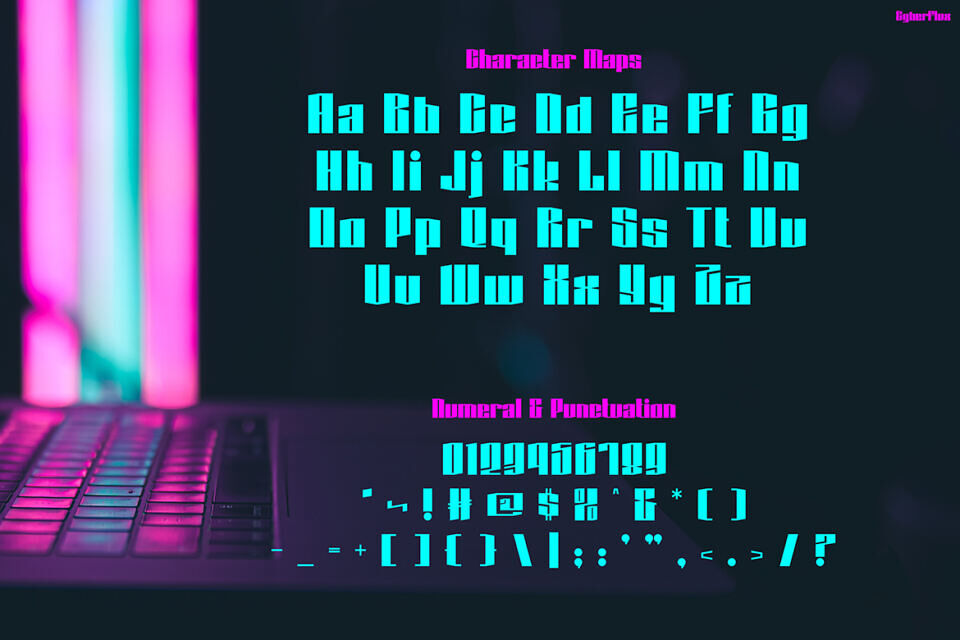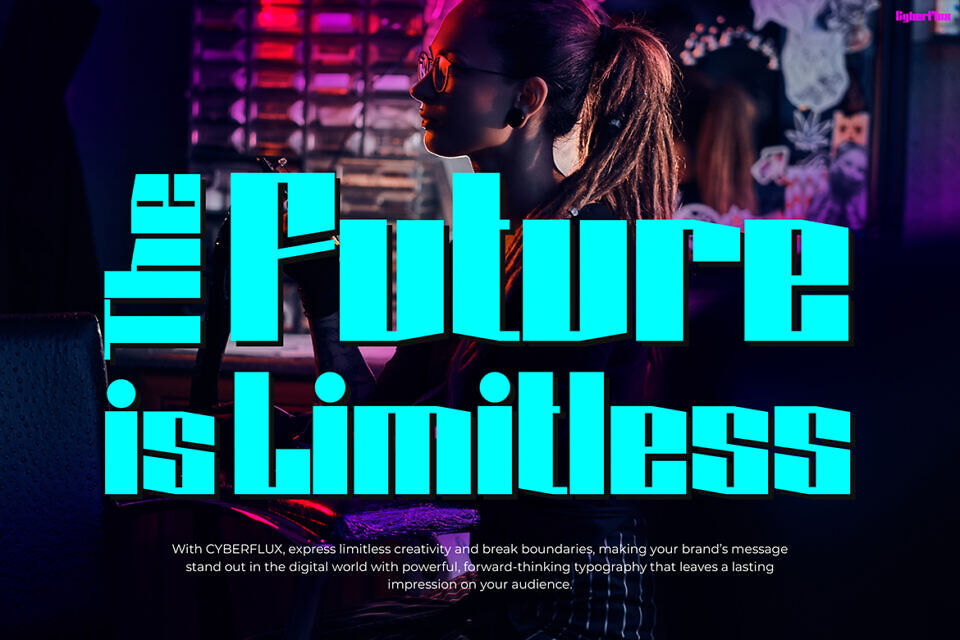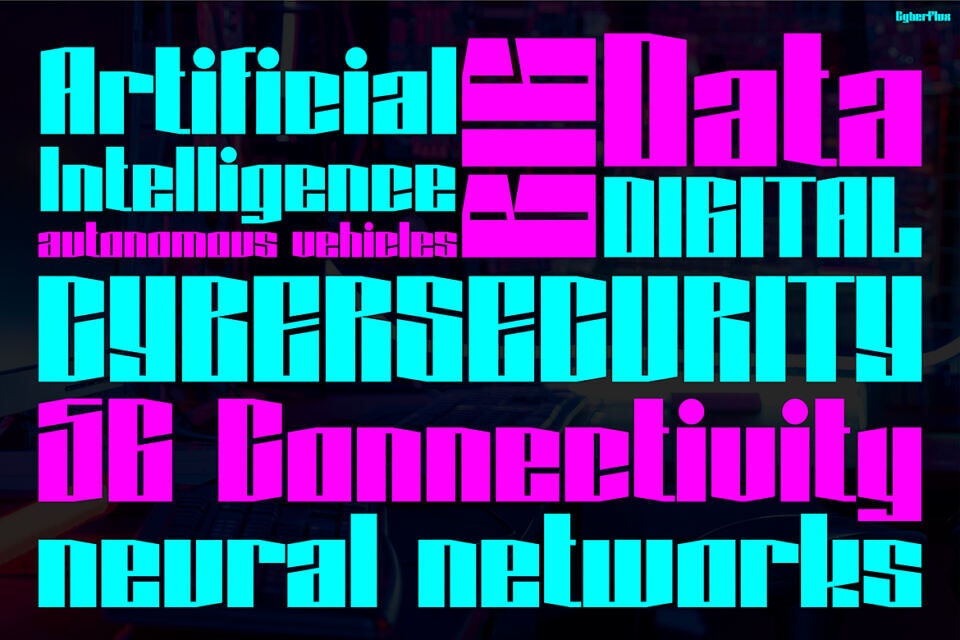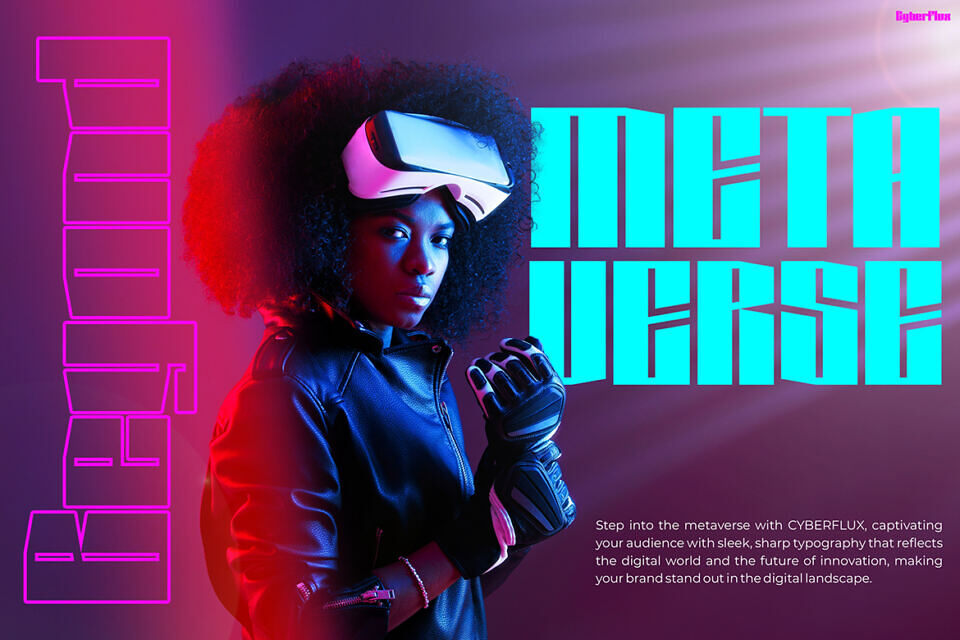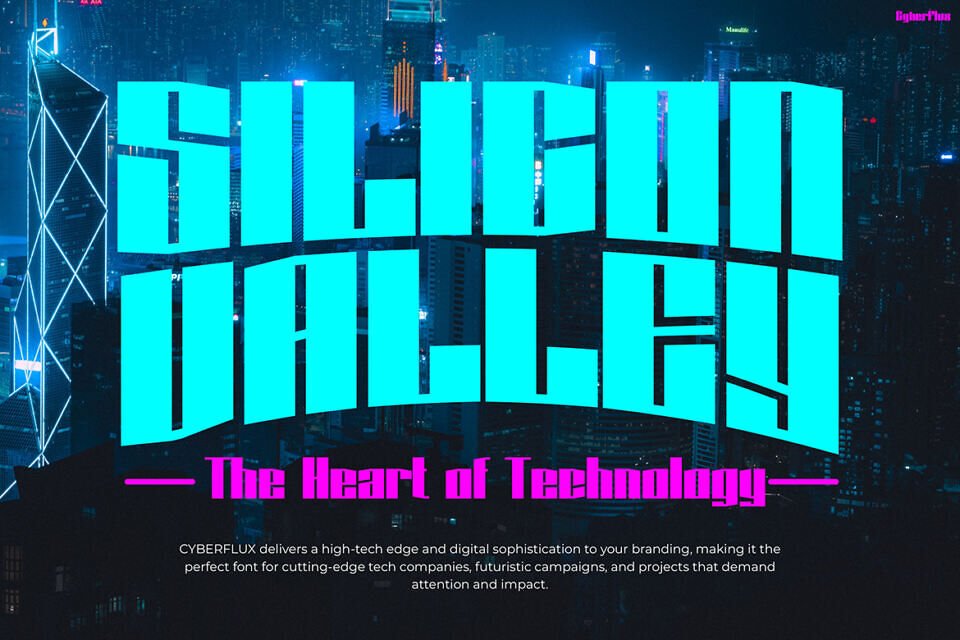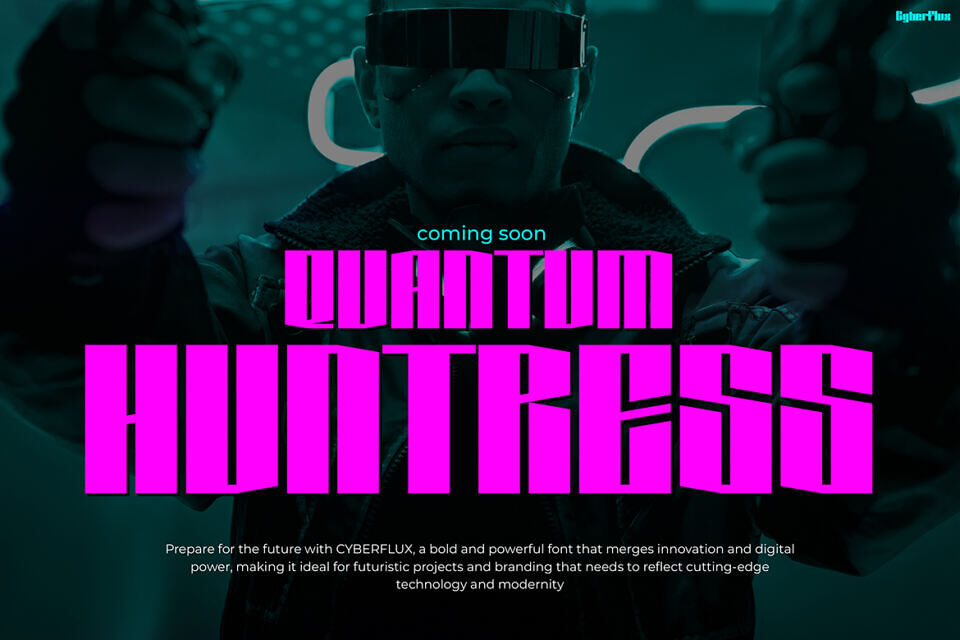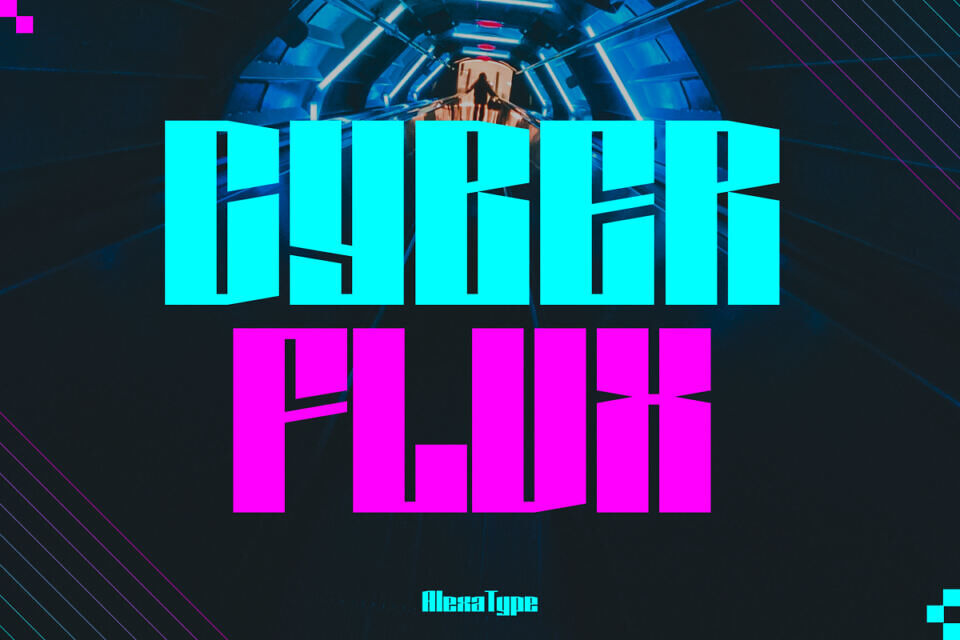
Cyberflux Font
Cyberflux Font brings a striking, futuristic edge to any design with its sharp, modular shapes and sleek, angular lines, radiating sci-fi elegance. It instantly transforms visuals, giving them a forward-looking vibe while blending technical precision with creative flair, making your brand stand out as innovative.
Beyond its bold style, Cyberflux ensures readability through geometric consistency and modern alignment, performing flawlessly across screens, prints, posters, and packaging—perfect for futuristic branding. Its cyberpunk aesthetic excels in virtual reality, digital fashion, and tech themes, especially when paired with neon or metallic colors, creating captivating visual impact.
This font’s strong personality helps craft a cutting-edge brand identity, making it a favorite for designers seeking a modern, edgy look. Cyberflux suits digital artists, forward-thinking brands, and techwear fashion labels, as well as gaming creators, VR developers, and NFT artists working in immersive digital spaces. Marketing teams and content creators can also leverage its high-tech appeal for standout campaigns, futuristic product launches, cyber-themed events, or digital fashion drops, ensuring a memorable impression.